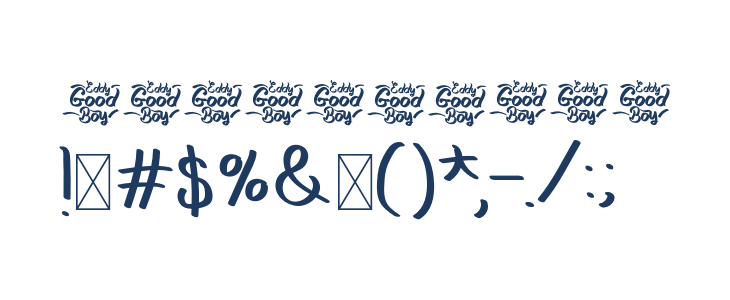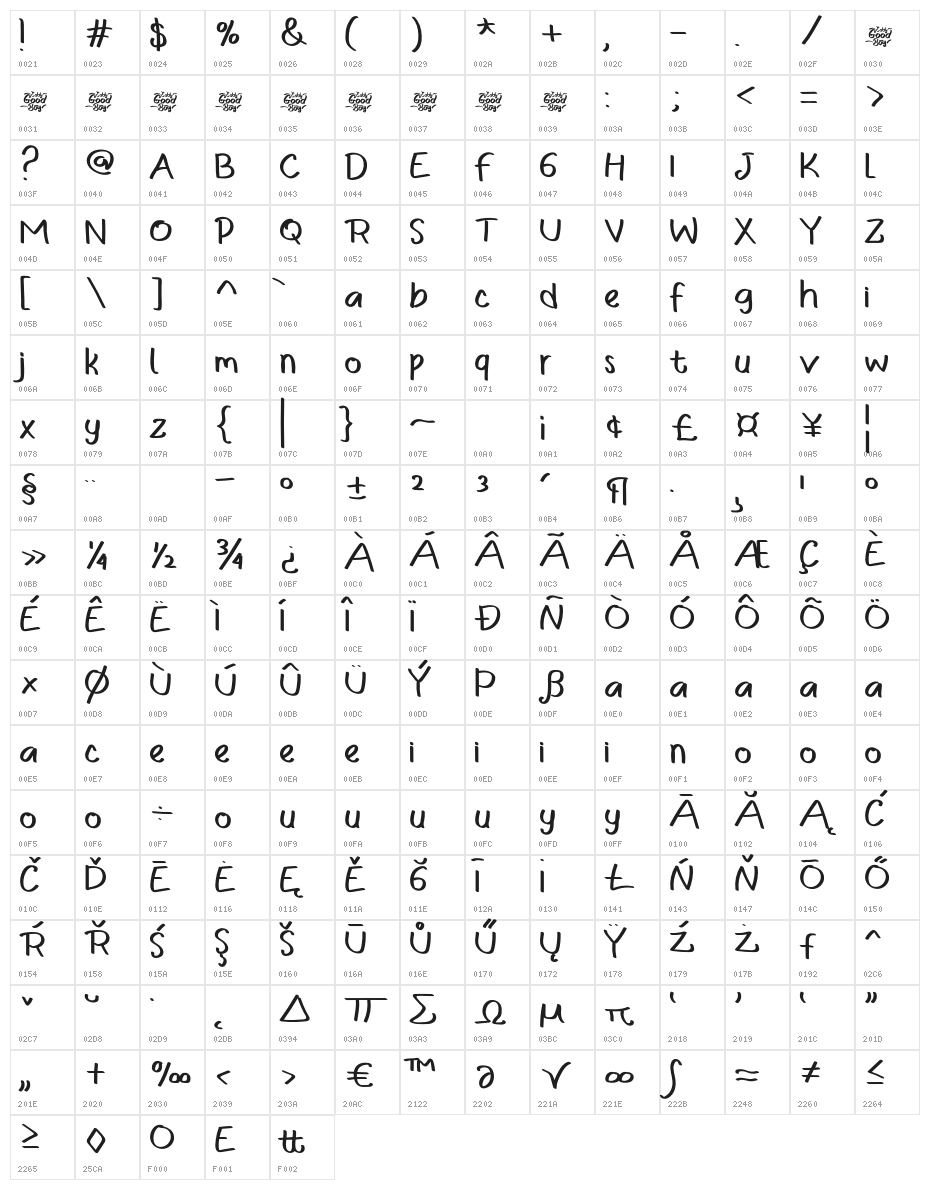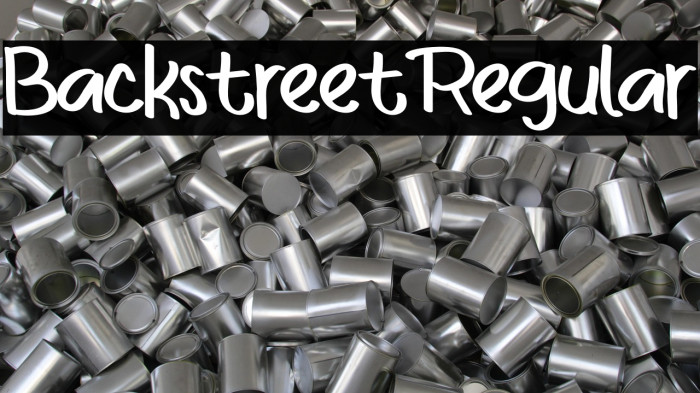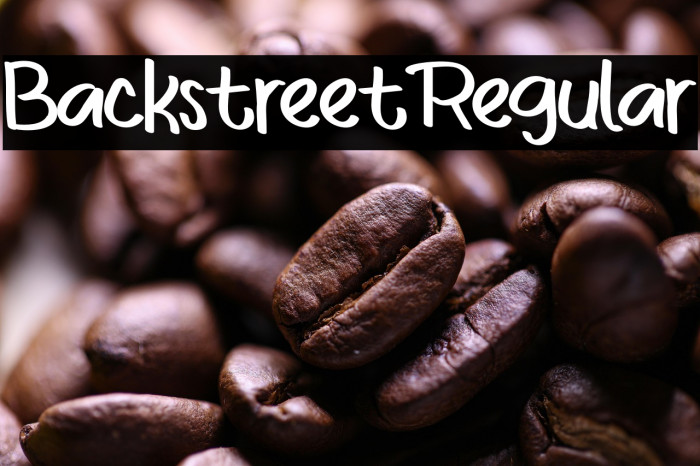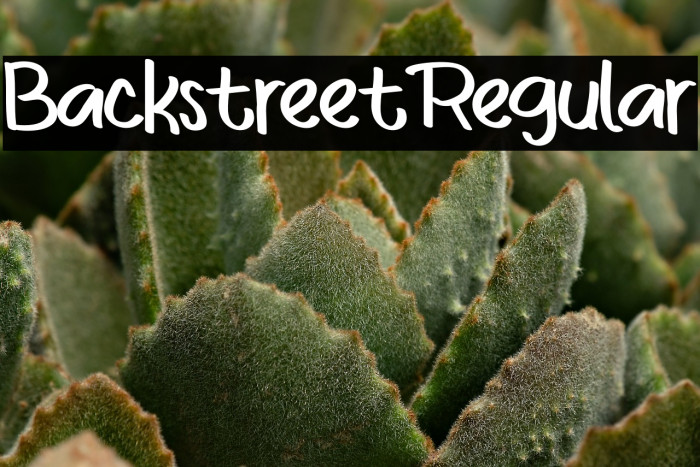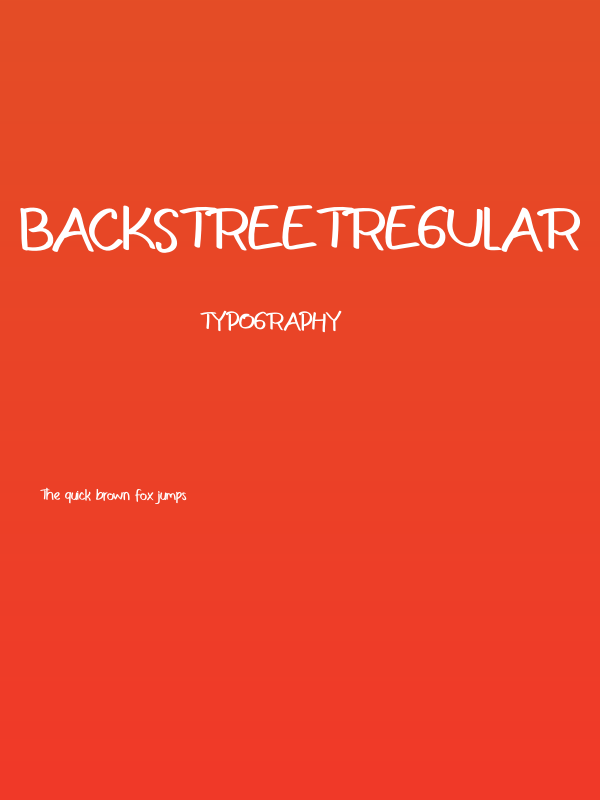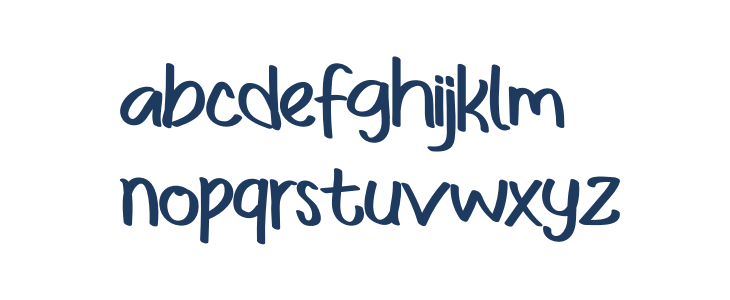
BackstreetRegular Font
BackstreetRegular Description
This font features a playful and casual handwritten style, characterized by its smooth, flowing lines and slightly irregular shapes. The uppercase letters are bold and prominent, while the lowercase letters maintain a consistent flow, enhancing readability. The font includes a full set of numerals and a variety of special characters, making it versatile for different uses. Its informal and friendly appearance makes it ideal for creative projects that require a personal touch. The strokes are moderately thick, providing a balanced contrast that ensures clarity without sacrificing style.
| Overall Style | Casual |
| Use Case | Headlines, Logos, Invitations |
| Proposed Projects | Ideal for greeting cards, invitations, children's books, and playful branding. |